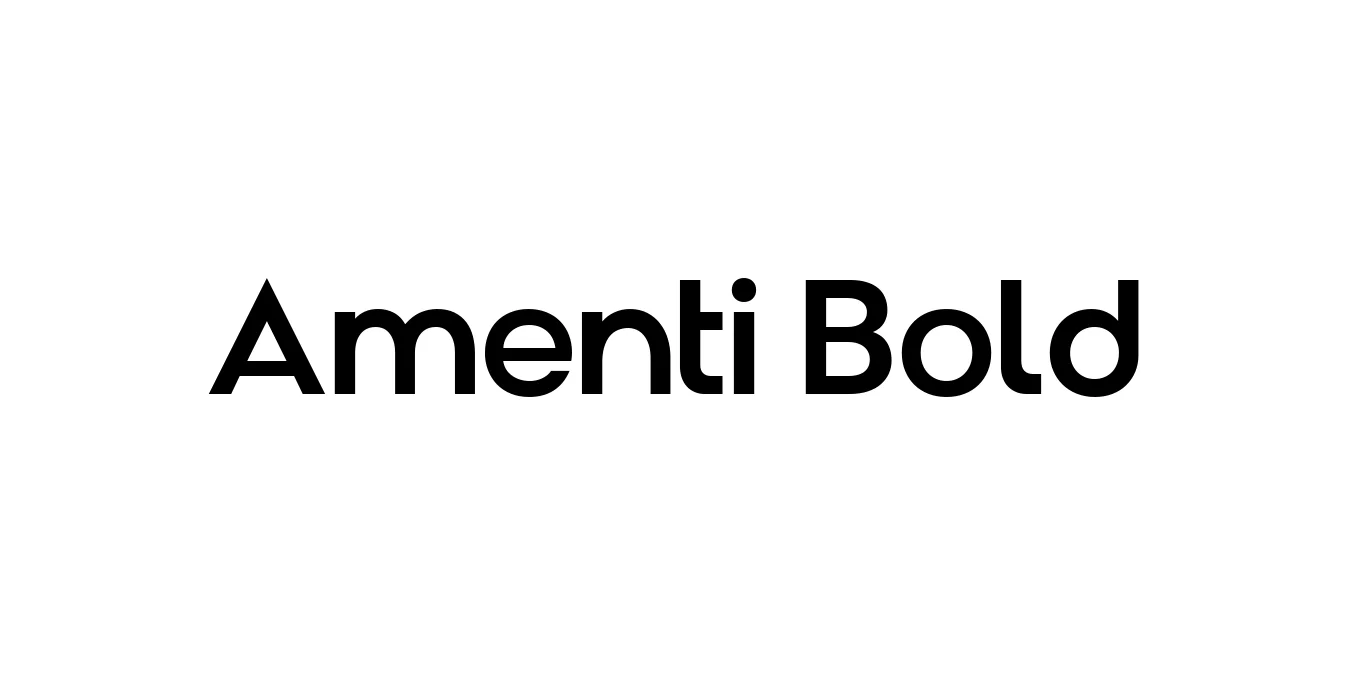
Amenti Bold
Designed by Zulhelman
| Category | Display / Sans Serif |
| Designer | Zulhelman |
| Similar Fonts | Montserrat Bold, Futura Extra Bold, Bebas Neue |
Amenti Bold is a striking display typeface that blends contemporary geometric shapes with subtle influences from ancient symbolic art. Its heavy weight and sharp terminals provide a commanding presence on the page, making it a favorite for designers looking to create a balance between modern minimalism and historical gravitas. The font's architecture is built on clean lines and wide apertures, ensuring that it remains legible even at high-impact scales.
The development of Amenti Bold was driven by the need for a versatile font that could serve both luxury branding and edgy editorial layouts. Since its release, it has been widely adopted in the creative industry for its ability to convey strength and sophistication. Whether used in digital headers or printed posters, this typeface provides a unique aesthetic that elevates the visual storytelling of any project.
Amenti Bold Best Uses
Ideal for creating strong, memorable visual identities and logos.
Perfect for high-impact magazine headings and pull quotes.
Great for large-scale advertising and event promotion.
Excellent for hero sections and bold website titles.